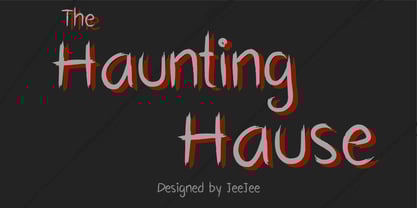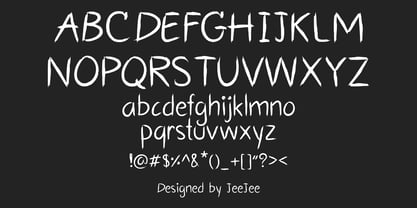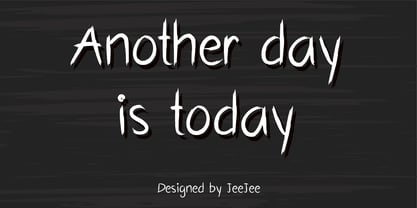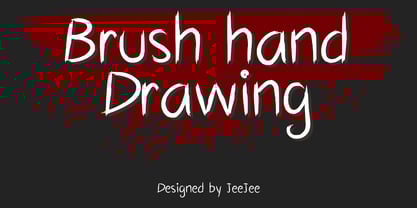
Casual Scribble
CasualScribble – A Raw, Relaxed Handwriting Typeface
CasualScribble captures the free-flowing energy of a spontaneous sketch — perfectly imperfect, playful, and expressive. Designed for creatives who want their words to feel human and unpolished, this handwritten font blends the edge of spontaneity with artistic intention.
Each character in CasualScribble is drawn with subtle variations in line weight and movement, giving the typeface an organic, scribbled appearance. It mimics the look of quickly jotting down thoughts in a notebook — candid, fresh, and full of personality. If you’re after a font that stands out in a world of overly polished type, this one’s for you.
✦ Why It’s Unique:
• Authentic stroke texture: Imperfect lines with slight grit give a natural, sketchy feel
• Personality-driven: Full of life, energy, and casual charm
• Stylized details in letters and punctuation create a hand-drawn, edgy aesthetic
• Versatile character set, including symbols and accented characters for broader use
CasualScribble pairs well with clean sans-serif fonts or gritty display typefaces, allowing it to stand out as a voice of creativity in modern compositions.
Whether you're designing for artistic rebellion, expressive storytelling, or laid-back personal branding, CasualScribble invites your text to break free from perfection — and scribble with soul.